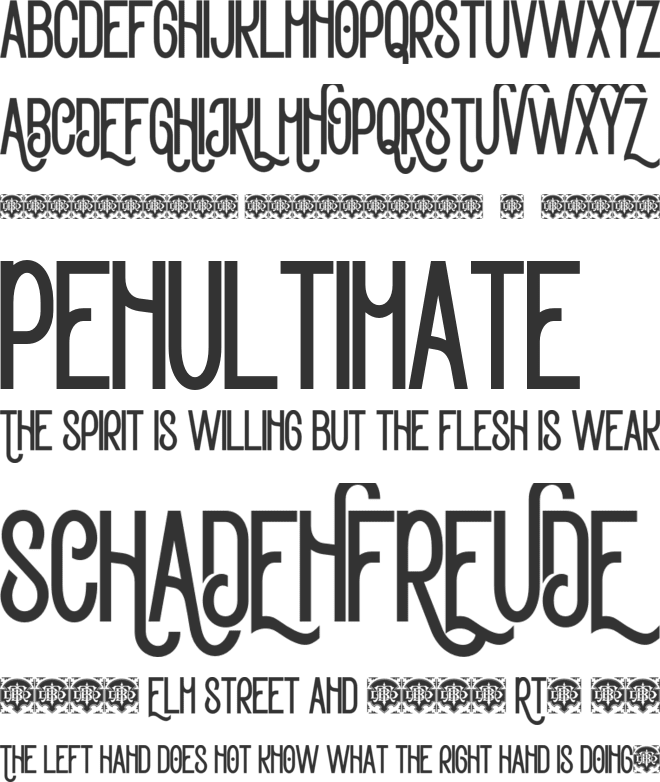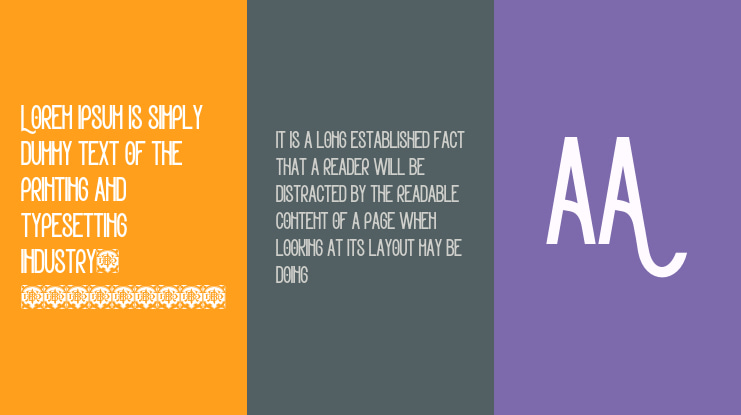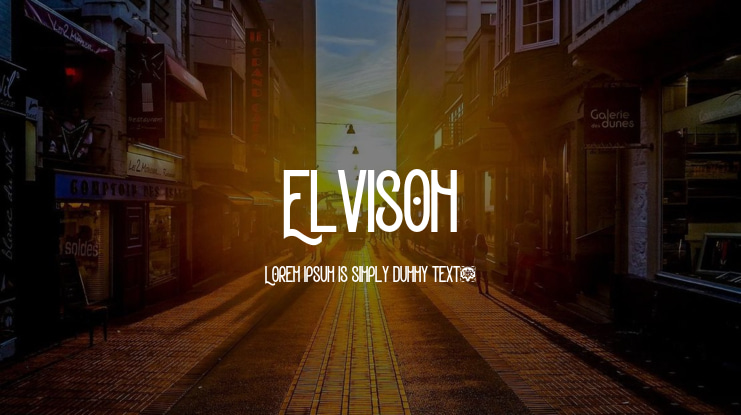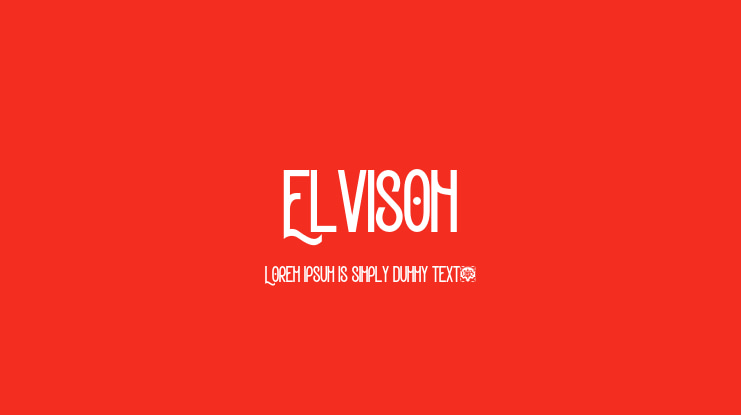
Elvison Font
Proudly presenting Elvison, a cultural custom font inspired by the spirit of classic American design. Elvison is a condensed monoline font with unique ligatures that evoke a sense of vintage, nostalgia, classic, custom culture, machine, art deco, grunge, and retro. The multilingual support makes it suitable for international projects. This font is ideal for branding, posters, social media, automotive, sports, barbershops, tattoo parlors, music album covers, and many more applications.